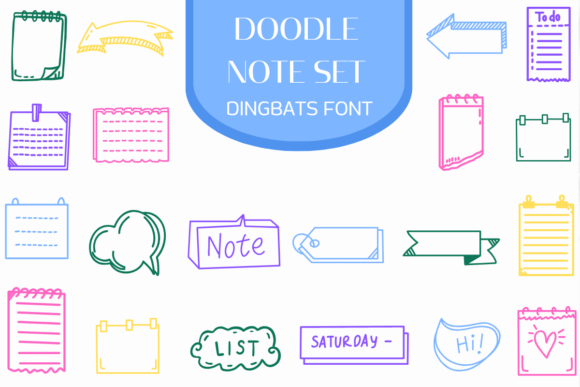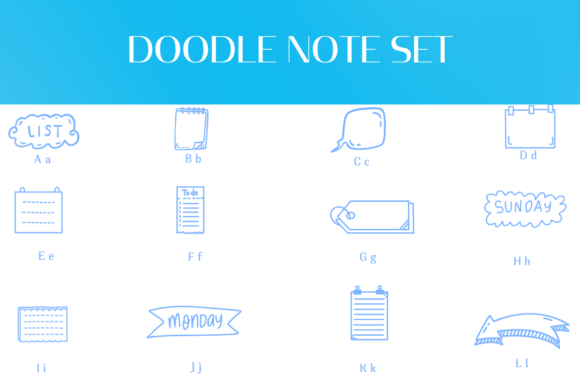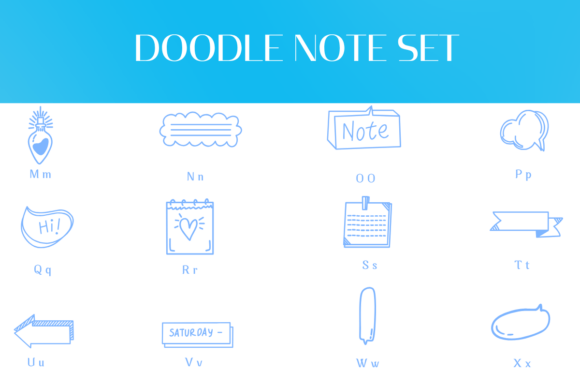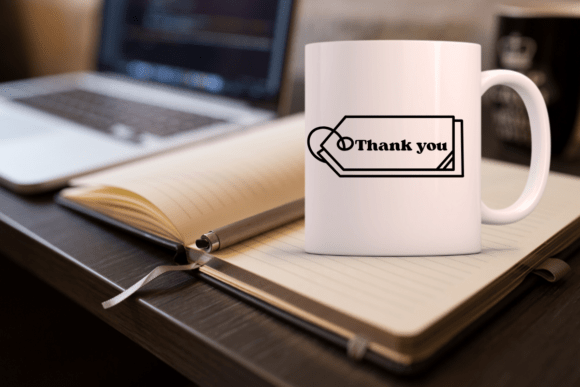
Doodle Note Set Font
Doodle Note Set is a dingbats font. You can use it for taking notes, writing a diary, or making greeting cards. However, you can still use it for other designs, such as banners, content, mugs, cards, shirts, stationery, social media posts, and more!